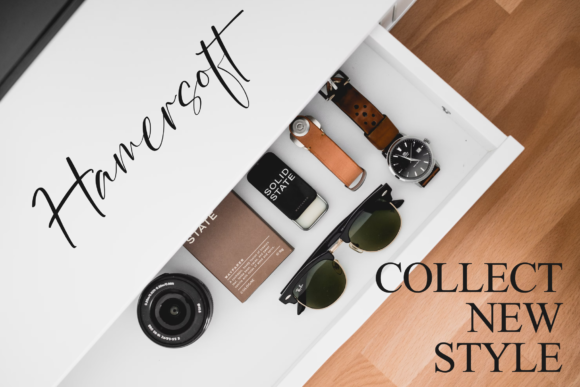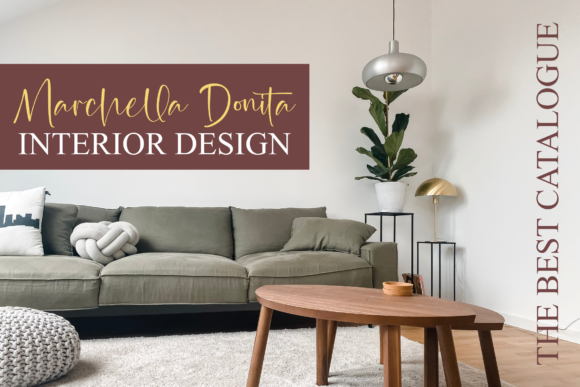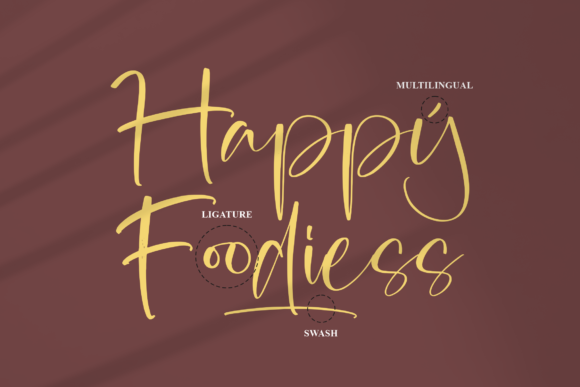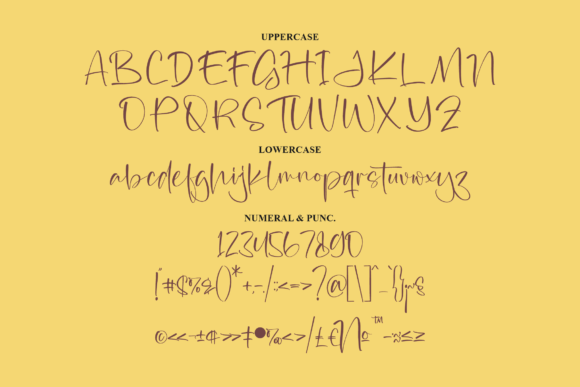
About Yasintha Font
Yasintha emerges as a fresh and contemporary script calligraphy typeface, introducing its own unique flow and elegant personality to the world of fonts. With its versatility, Yasintha proves to be an ideal choice for a wide range of design projects, including logo design, branding, covers, posters, and more.
The font’s unique flow sets it apart, showcasing a distinctive and appealing quality that captures attention. Yasintha’s elegant personality is evident in the graceful flow of its characters, making it well-suited for projects that require a touch of sophistication.
In the realm of logo design, Yasintha stands out as a font that can infuse brand identities with a distinctive and stylish flair. Its modern and elegant elements contribute to creating memorable and impactful logos that leave a lasting impression.
Yasintha’s adaptability extends to various design projects, ranging from branding materials to covers and posters. Its sophisticated demeanor adds a refined touch, enhancing the visual appeal of any project it graces.
The PUA encoding of Yasintha is a noteworthy feature, providing convenient access to a rich array of amazing glyphs and ligatures. This feature empowers designers to explore and incorporate a diverse range of elements, allowing for a personalized and creative touch in their projects.
In essence, Yasintha is more than just a font; it’s a design asset that seamlessly combines modernity with timeless elegance. With its unique flow and sophisticated personality, Yasintha emerges as an excellent choice for designers seeking to elevate their projects with contemporary and visually striking elements.